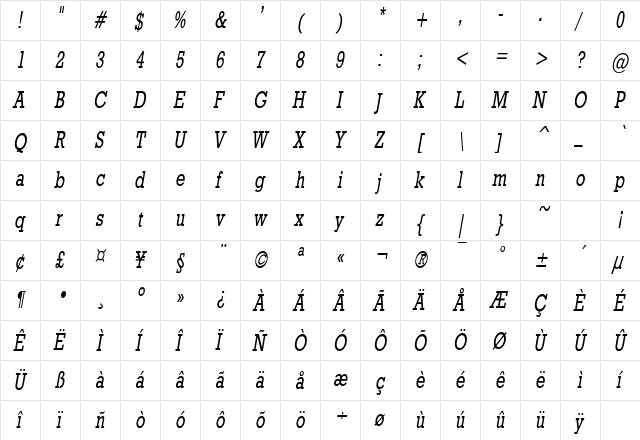
RocklandCondensed Italic Font Preview
Design Context for RocklandCondensed Typeface
RocklandCondensed takes a measured approach to typography — its balanced proportions and neutral character make it a reliable workhorse for both digital and print work. The dynamic lean of this cut emphasises speed and emphasis in any layout. The condensed width makes it efficient for tight spaces without sacrificing legibility.
Pro Tip: Try RocklandCondensed for annotation and caption copy alongside an upright companion — the contrast in angle creates a dynamic but ordered typographic system.